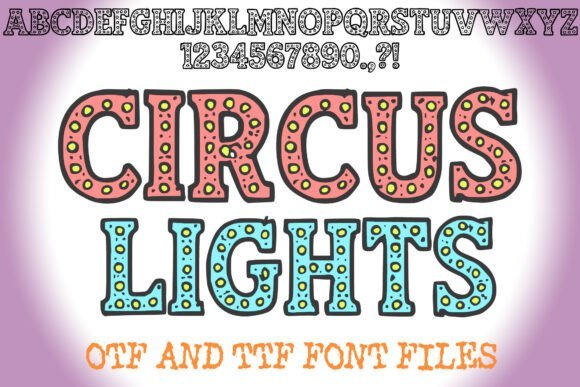
The Magic of Circus Lights Font
Have you ever walked into a dimly lit room and been immediately captivated by the vibrant glow of a vintage marquee sign? The thrill of a carnival, the excitement of a circus performance, and the magic of a bygone era all come together in a single, mesmerizing spectacle. As designers, we know that capturing this essence is key to creating truly unforgettable experiences.
Enter Circus Lights Font, a bold decorative display font that embodies the whimsy and wonder of those iconic signs. With its playful light-bulb dot patterns and thick slab-serif structure, this font is perfect for designers seeking a nostalgic, festive, and theatrical flair. Whether you’re creating posters, party invitations, or signage, Circus Lights Font is the perfect tool for bringing your vision to life.
With its versatility and unique style, Circus Lights Font is an invaluable addition to any designer’s toolkit. By combining it with your creativity, you can create truly one-of-a-kind designs that shine with a touch of vintage charm.
Circus Lights Font Key Features
- Font Family: Circus Lights is a display font designed for headings and titles, making it perfect for creating eye-catching and energetic designs.
- Unique Characteristics: Circus Lights features a bold, playful, and energetic design, with intricate details and ornaments that add to its unique charm.
Circus Lights Font Review
Circus Lights Font is a playful and eye-catching font that’s perfect for projects that need a bit of whimsy. I’ve been working with this font for a while now, and I have to say that it really shines in certain areas.
- ✨ Unique design: Circus Lights Font has a one-of-a-kind aesthetic that’s sure to grab attention.
- ✨ Versatility: This font can be used in a variety of contexts, from logos to signage to digital displays.
- ✨ Expressiveness: Circus Lights Font is great for conveying a sense of energy and excitement.
- ⚠️ Limited legibility: At small sizes, the font can become difficult to read.
- ⚠️ Not ideal for body text: Circus Lights Font is best used as a heading or accent font, rather than for large blocks of text.
- ⚠️ Some characters may not be as well-designed as others.
Circus Lights Font is a fun and engaging font that’s perfect for projects that need a bit of flair. While it may have some limitations, it’s a great choice for headings, logos, and other visual elements. Just be mindful of its limitations, and you’ll be able to get the most out of this unique font.
For the best results, use the Circus Lights Font in bold or italic styles to add emphasis. It’s perfect for creating eye-catching headings, titles, and banners. Use it to add a touch of whimsy to your designs, especially in children’s party invitations, circus-themed promotions, or vintage-inspired graphics.